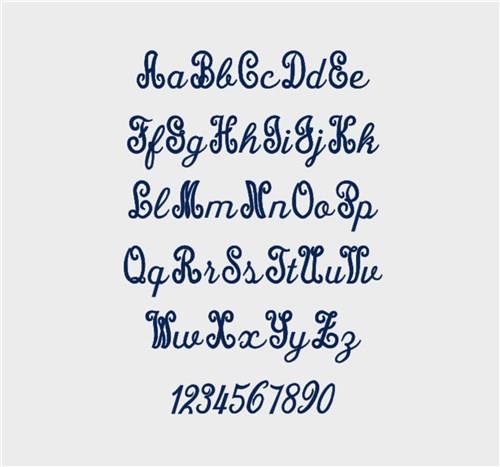
Upright script Embroidery Font - Flowing Cursive Handwriting - PES, DST & 6 formats by Artsy Knots and other embroidery fonts available at EmbroideryDesigns.com.
Artsy Knots is happy to present Upright script Embroidery Font - Flowing Cursive Handwriting - PES, DST & 6 formats machine embroidery font which has This flowing, cursive machine embroidery font is ideal for decorative projects on fabric items like table linens. Offered in PES, DST, and six other formats for your convenience. included. If you would like to view more embroidery fonts and alphabets please search our embroidery fonts page.